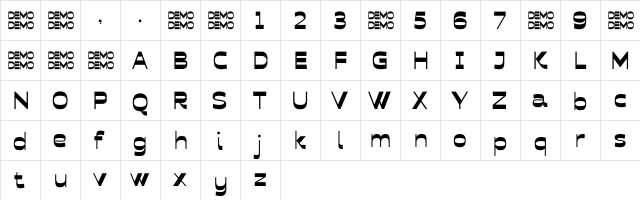
Fergana Demo Bold
| Designer | Muhammad Hastian |
Design Context for Fergana Demo Typeface
Fergana Demo takes a measured approach to typography — its balanced proportions and neutral character make it a reliable workhorse for both digital and print work. Its bold stroke weight gives it real presence on the page.